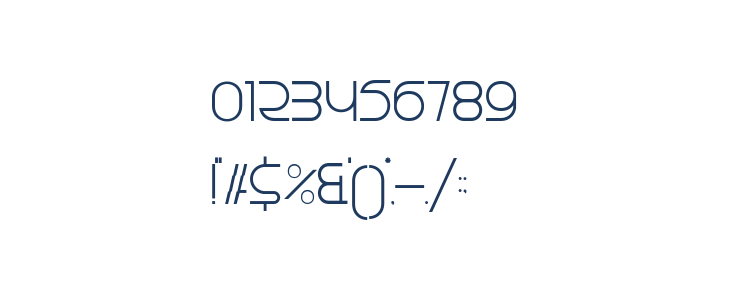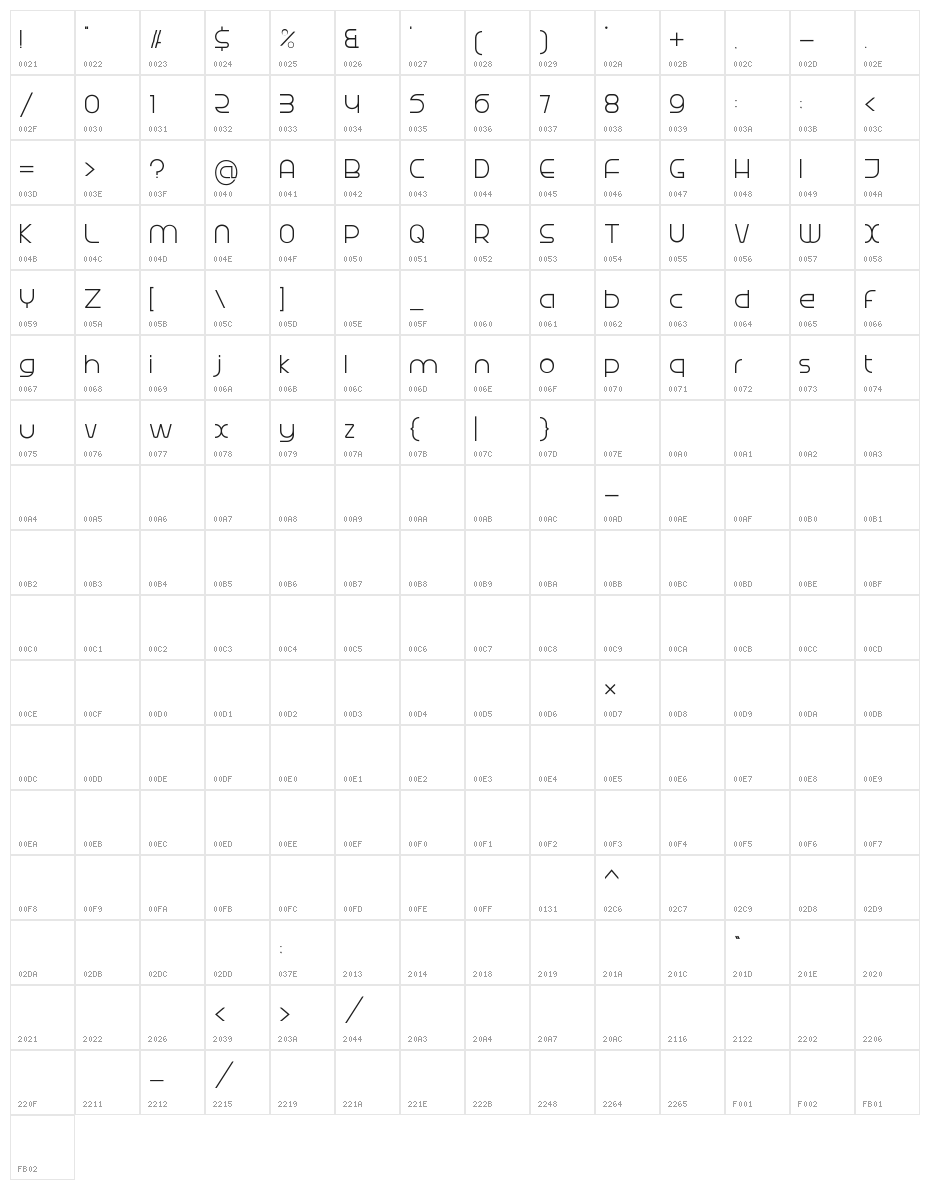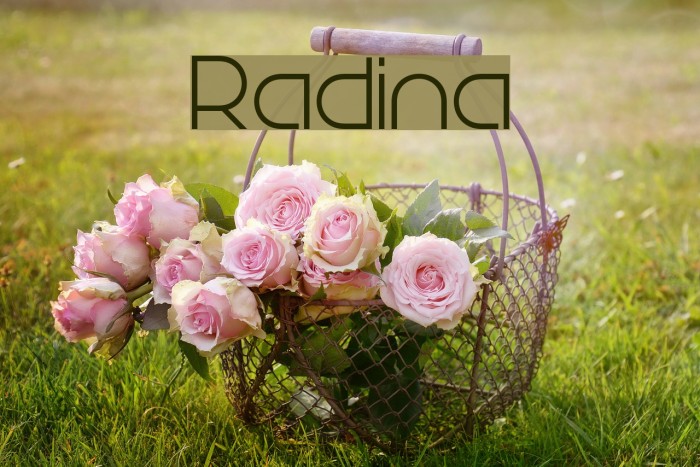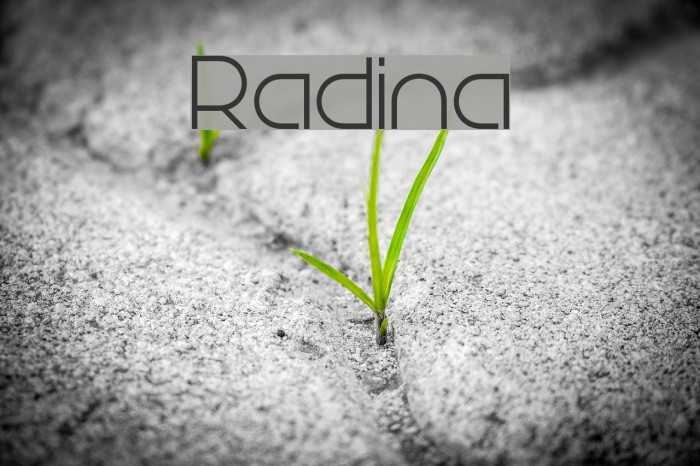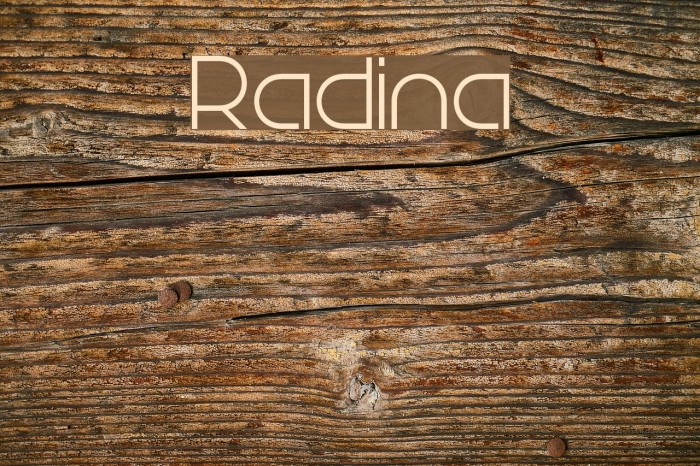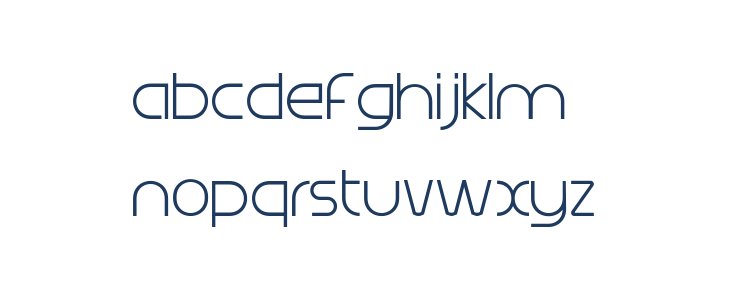
Radina Font
Radina Description
This font exhibits a sleek, modern design with a geometric structure. Each character is crafted with a consistent line weight, contributing to a clean and minimalist appearance. The uppercase letters are uniform in height, while the lowercase letters maintain a balanced proportion. The numerals are distinct and align well with the overall aesthetic. Special characters are designed to complement the alphabet, ensuring versatility in various applications. The font's smooth curves and straight lines create a harmonious blend, making it suitable for contemporary design projects.
| Use Case | Headlines, Logos, Digital Interfaces |
| Proposed Projects | Ideal for branding, digital interfaces, modern advertising, and minimalist design projects. |